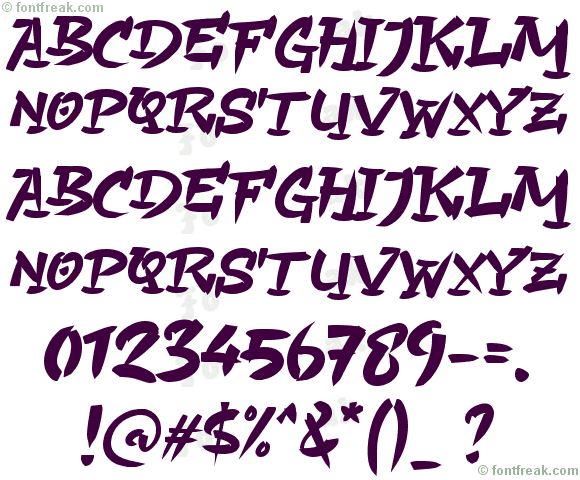
Astaga Dragon
About Astaga Dragon
Astaga Dragon, designed by Wahyu Eka Prasetya, is a captivating display font that brings a whimsical yet bold aesthetic to any project. This font falls under the decorative category, characterized by its playful strokes and unique design elements that evoke a sense of fantasy and adventure. The stroke weight varies throughout the letters, creating a dynamic visual rhythm, while the contrasting thick and thin lines add depth and interest. The spacing is thoughtfully crafted, ensuring each character maintains clarity while contributing to an overall cohesive look.
Astaga Dragon is perfect for a variety of creative applications. Its distinctive style makes it an excellent choice for children's book covers, where the playful nature of the font can capture the imagination of young readers. Additionally, it shines in the realm of movie posters, particularly for fantasy and adventure genres, where it can evoke the mystical themes often associated with dragons. Restaurant menus can also benefit from its eye-catching design, drawing attention to featured items or special offers. Graphic designers looking to make a statement in branding or promotional materials will find this font to be a valuable asset as well.
The target audience for Astaga Dragon includes graphic designers, small business owners, and content creators who seek to infuse their work with personality and flair. Whether used in digital or print media, this font adds a unique touch that stands out in a crowded marketplace.